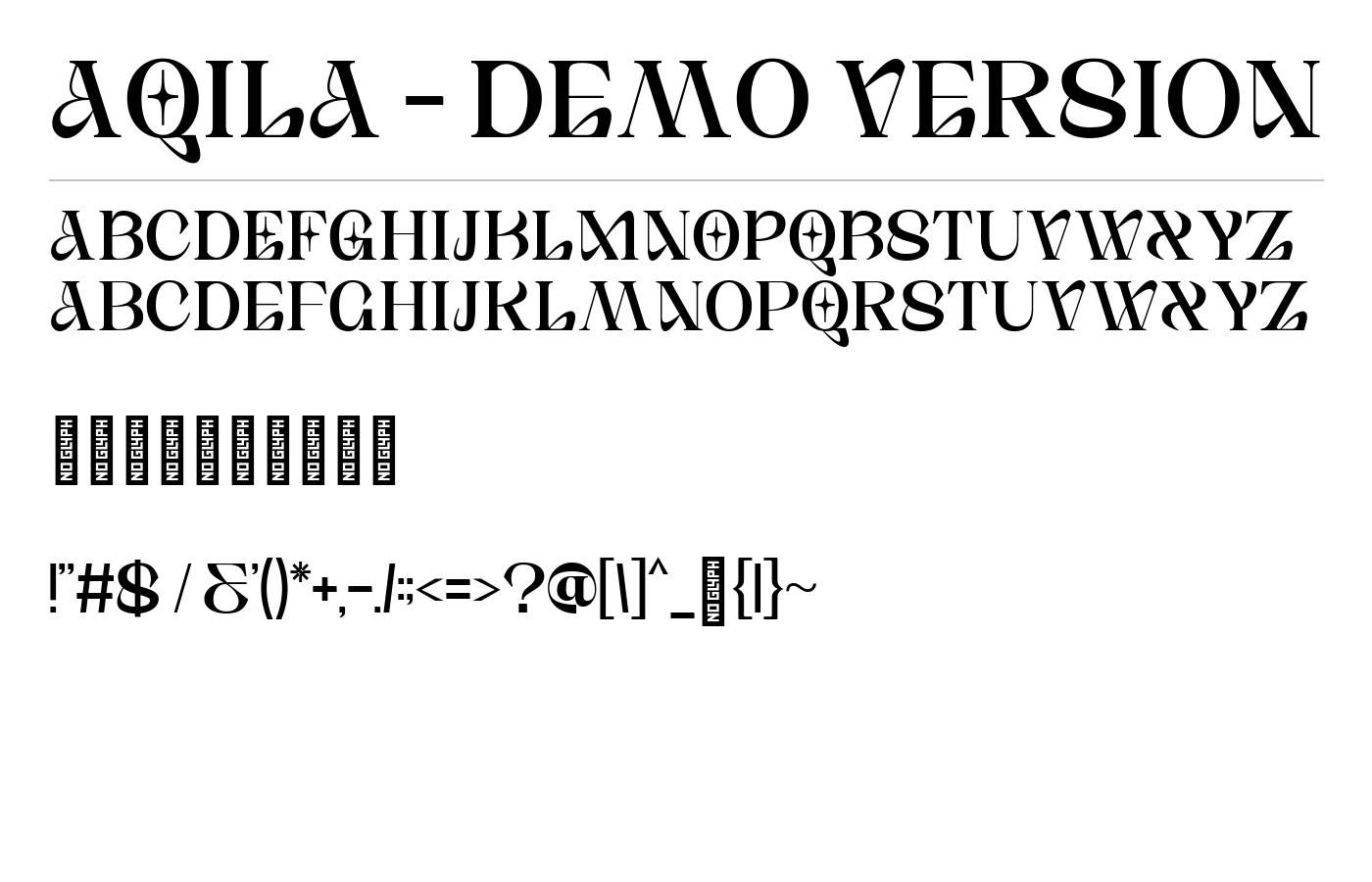
Aqila is an artistic serif font with a distinctive blend of classic elegance and decorative flair, featuring sharp contrast between thick and thin strokes and unique swirling terminal details. Its tall, condensed letterforms with high contrast and unconventional shapes evoke a vintage yet avant-garde mood, ideal for striking headlines, fashion branding, and creative logos. This font shines in projects where expressive and eye-catching typography is key to conveying sophistication and individuality.
Aqila - Demo Version Font
About Aqila - Demo Version Font